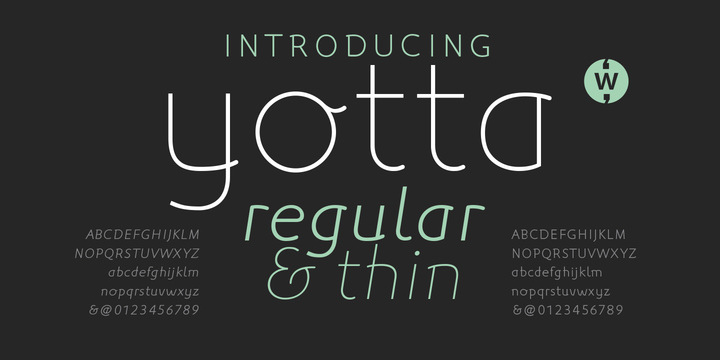
Yotta Font
Yotta Font is perfect for big data analytics branding, massive tech infrastructure companies, cloud computing platforms, supercomputer facilities, scientific research institutions, large-scale engineering projects, enterprise software solutions, data center signage, quantum computing materials, and technological innovation campaigns.
Yotta Font is exciting because it embodies the concept of massive scale and computational power, creating a typeface that represents the extraordinary magnitude of modern data processing and technological capability. This font brings monumental sophistication and technological gravitas to any project, making it ideal for organizations dealing with vast amounts of data, massive computational systems, and large-scale technological solutions. Its substantial character and scalable design create an atmosphere of technological magnitude that resonates with audiences working at the frontiers of computational science.
Yotta Font family includes thin, light, regular, medium, bold, and black weights, each available in roman and italic styles with scientific symbols and computational ornaments, providing designers with comprehensive tools for creating large-scale technology typography and data-focused brand experiences.
This powerful technological typeface combines massive scale aesthetics with contemporary functionality, making Yotta Font Free Download an outstanding choice for projects celebrating computational excellence and data science innovation. The font's robustly engineered letterforms feature substantial proportions and tech-inspired styling that reflect the enormous processing power and data handling capabilities of modern supercomputing systems.
Whether you're designing data analytics company branding, scientific computing materials, or enterprise technology communications, Yotta Font delivers unmatched technological authenticity and computational credibility. The font excels in both large-scale data center applications and detailed technical documentation where massive computational power and data processing excellence create industry-leading solutions.
Technology professionals choose Yotta Font for its ability to instantly communicate scale and computational power while maintaining excellent readability across complex technical applications. The font's massive character makes it particularly effective for supercomputing centers, big data companies, and scientific research institutions.
Each character demonstrates the substantial presence of large-scale computing, featuring robust construction and massive proportions that create typography as powerful and reliable as exascale supercomputers and petabyte data storage systems.